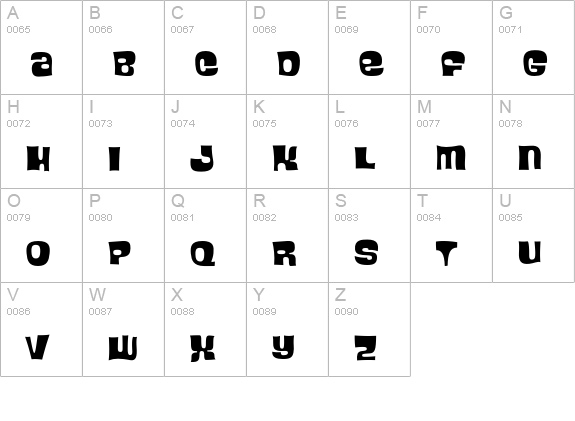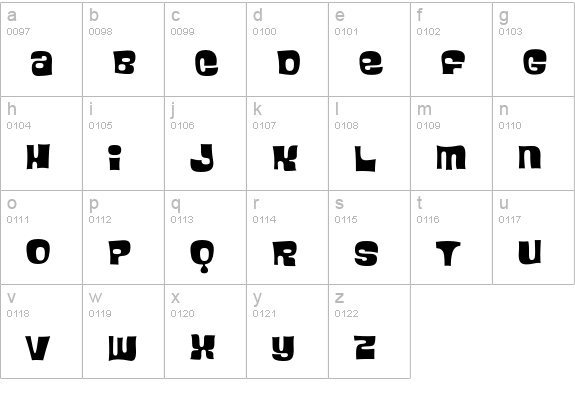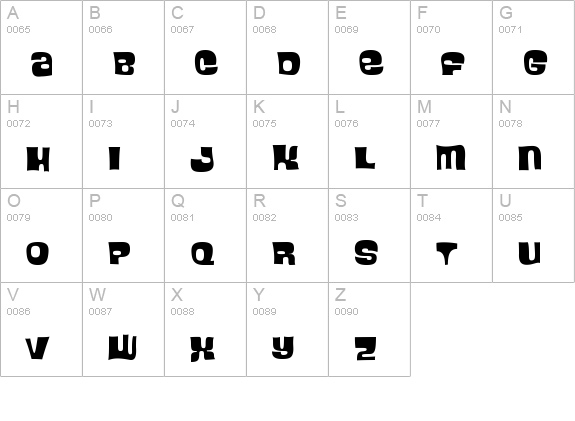
Blackcurrant-Squash font is a unique and eye-catching typeface that exudes elegance and style. With its bold and modern design, this font is perfect for adding a touch of sophistication to any project. The sleek lines and curves of Blackcurrant-Squash font make it stand out from the crowd, making it a versatile choice for a wide range of design applications. This font is not only visually appealing but also highly functional, making it a must-have for designers and creatives alike. Whether you're working on a branding project, a website design, or a print advertisement, Blackcurrant-Squash font will help you make a bold statement. The best part? Blackcurrant-Squash font is available for free download at FontsMarket.com. Simply visit the website and start using this stunning font in your projects today. Don't miss out on this amazing opportunity to enhance your designs with the elegance and sophistication of Blackcurrant-Squash font.